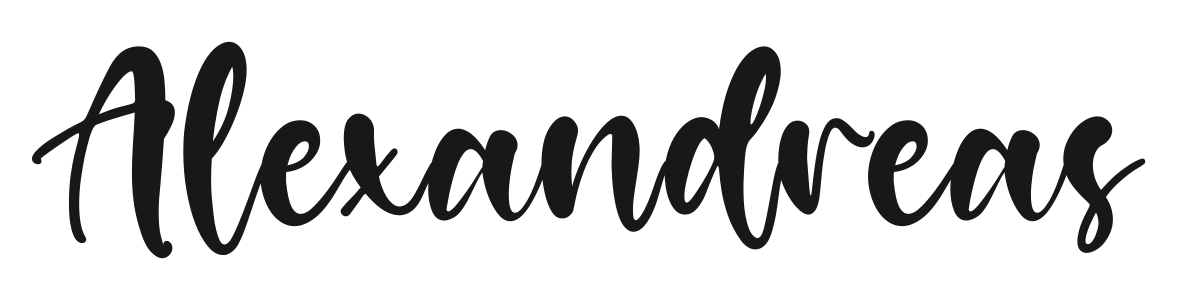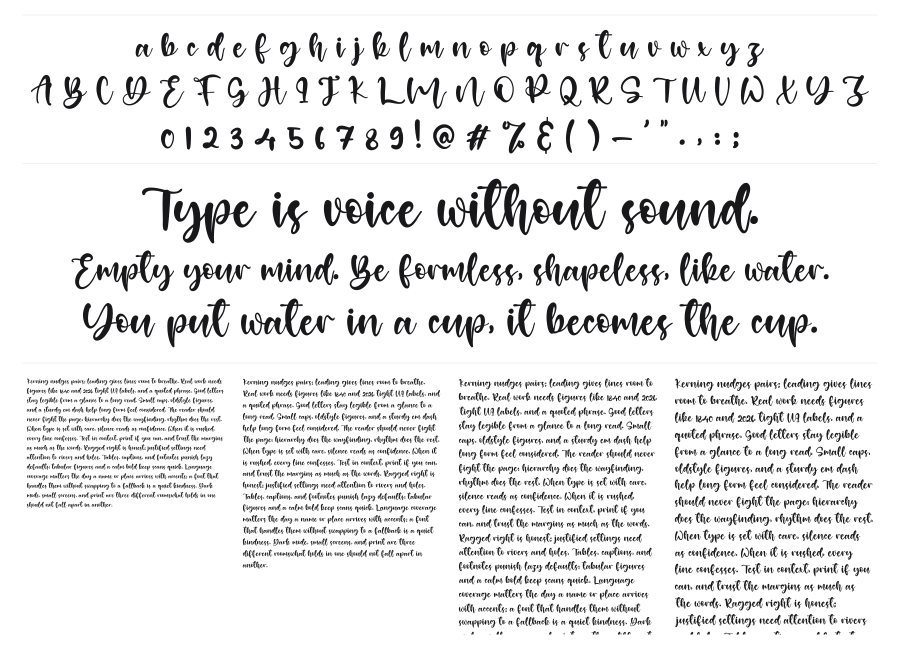
Alexandreas
Alexandreas is a bold brush-script with a lively, bouncy rhythm and confident ink-like strokes. The thick-to-thin contrast is strong but never stiff, keeping the hand-painted warmth intact across connected letters. It reads naturally at large sizes and carries real character in logos, packaging, and editorial headlines.